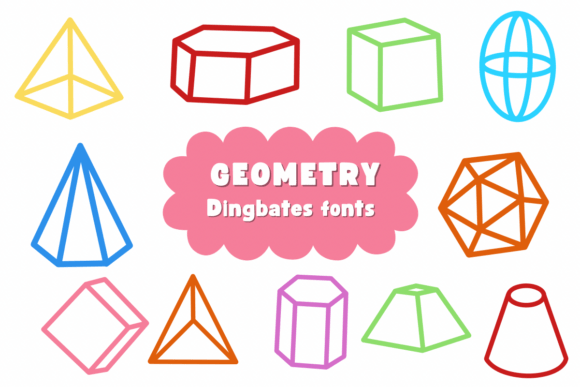
Unlock Creative Possibilities with Geometry Font
Are you a designer, crafter, or DIY enthusiast looking for a unique and versatile font to elevate your creative projects? Look no further than Geometry Font, a dingbats font with an abstract theme that’s perfect for adding a touch of modern style to your designs. In this article, we’ll explore the features and benefits of Geometry Font, and show you how it can enhance your creative projects, from wedding invitations to logos and beyond.
What is Geometry Font?
Geometry Font is a dingbats font that features a collection of abstract geometric shapes, including lines, shapes, and symbols. This font is designed to add a touch of modernity and sophistication to your designs, making it perfect for a wide range of creative projects. With its unique and versatile characters, Geometry Font can be used to create everything from simple and elegant designs to complex and intricate patterns.
Features of Geometry Font
- Abstract theme: Geometry Font features an abstract theme that’s perfect for adding a touch of modern style to your designs.
- Geometric shapes: The font includes a wide range of geometric shapes, including lines, shapes, and symbols.
- Versatile: Geometry Font can be used for a wide range of creative projects, from wedding invitations to logos and beyond.
Benefits of Using Geometry Font
So why choose Geometry Font for your creative projects? Here are just a few benefits of using this versatile font:
- Adds a touch of modern style: Geometry Font’s abstract theme and geometric shapes add a touch of modern style to your designs, making them stand out from the crowd.
- Increases creativity: With its unique and versatile characters, Geometry Font can help inspire your creativity and take your designs to the next level.
- Perfect for DIY projects: This font is perfect for DIY enthusiasts and crafters who want to add a professional touch to their projects.
- Scalable: Geometry Font is scalable, making it perfect for use on a wide range of projects, from business cards to billboards.
Ideas for Using Geometry Font
So what can you create with Geometry Font? Here are just a few ideas to get you started:
- Wedding invitations: Use Geometry Font to create beautiful and unique wedding invitations that set the tone for your special day.
- DIY crafts: Add a touch of modern style to your DIY crafts, such as decorations, cards, and gift tags.
- Logos: Use Geometry Font to create modern and professional logos for your business or brand.
- Social media graphics: Create eye-catching social media graphics, such as Facebook posts and Instagram stories, using Geometry Font.
- Stationery: Use Geometry Font to create modern and stylish stationery, such as letterheads and business cards.
Tips for Using Geometry Font
Here are a few tips for getting the most out of Geometry Font:
- Experiment with different colors: Geometry Font looks great in a wide range of colors, so don’t be afraid to experiment and find the perfect color scheme for your design.
- Mix and match characters: Geometry Font’s characters are designed to be mixed and matched, so try combining different shapes and symbols to create unique and interesting designs.
- Use it with other fonts: Geometry Font pairs well with a wide range of fonts, so try using it with other fonts to create interesting and dynamic designs.
Geometry Font is a versatile and modern dingbats font that’s perfect for adding a touch of abstract style to your creative projects. With its unique and versatile characters, this font can be used for a wide range of projects, from wedding invitations to logos and beyond. Whether you’re a designer, crafter, or DIY enthusiast, Geometry Font is a great choice for anyone looking to add a touch of modern style to their designs.